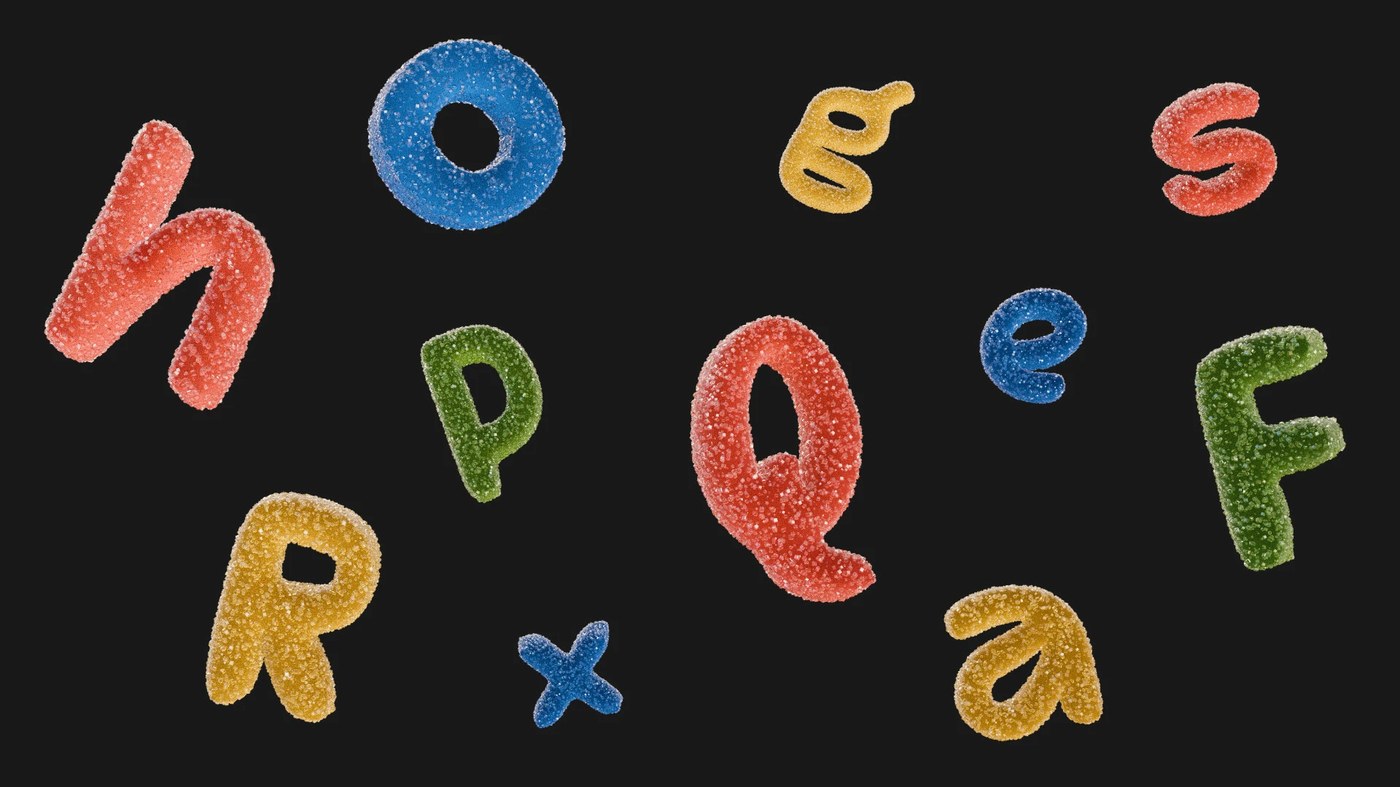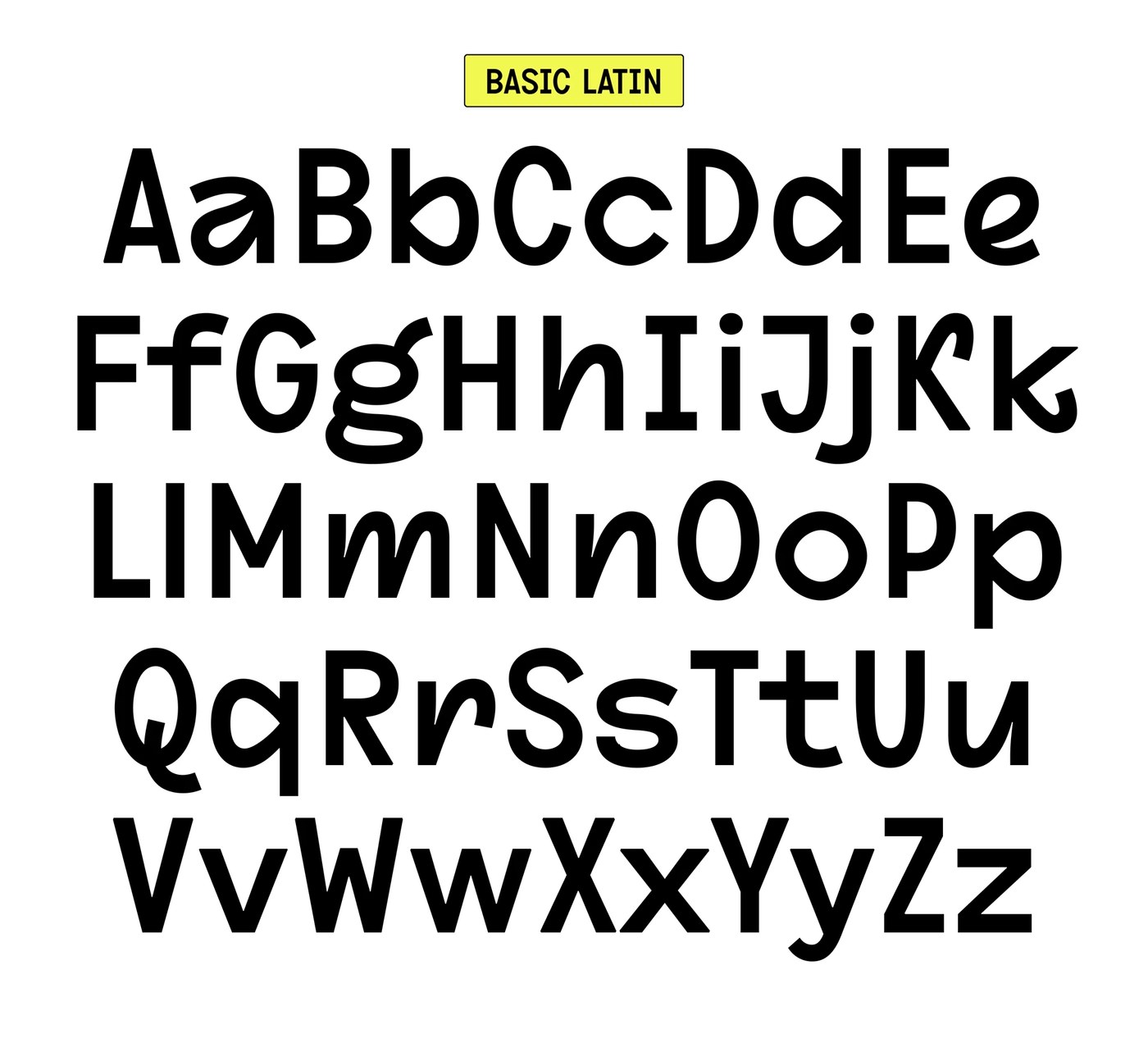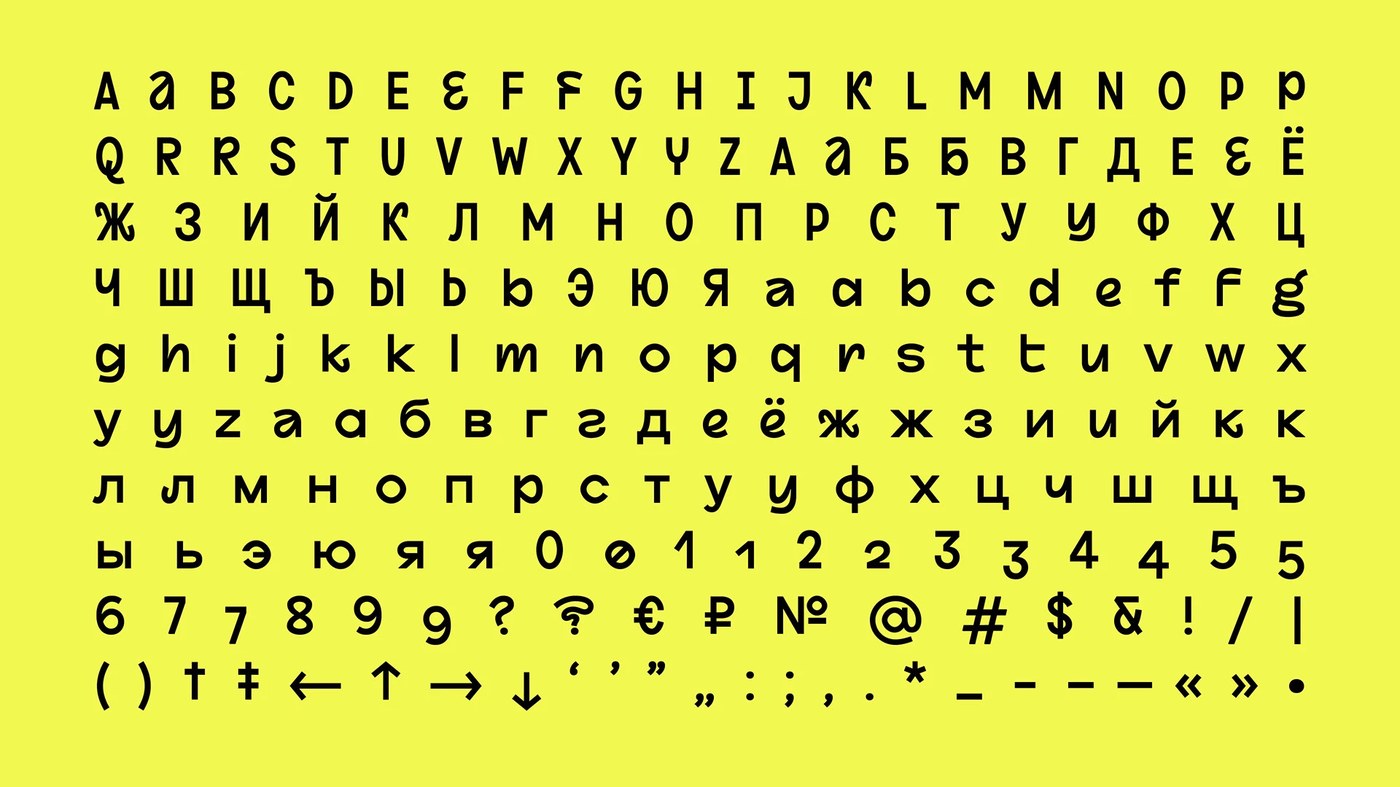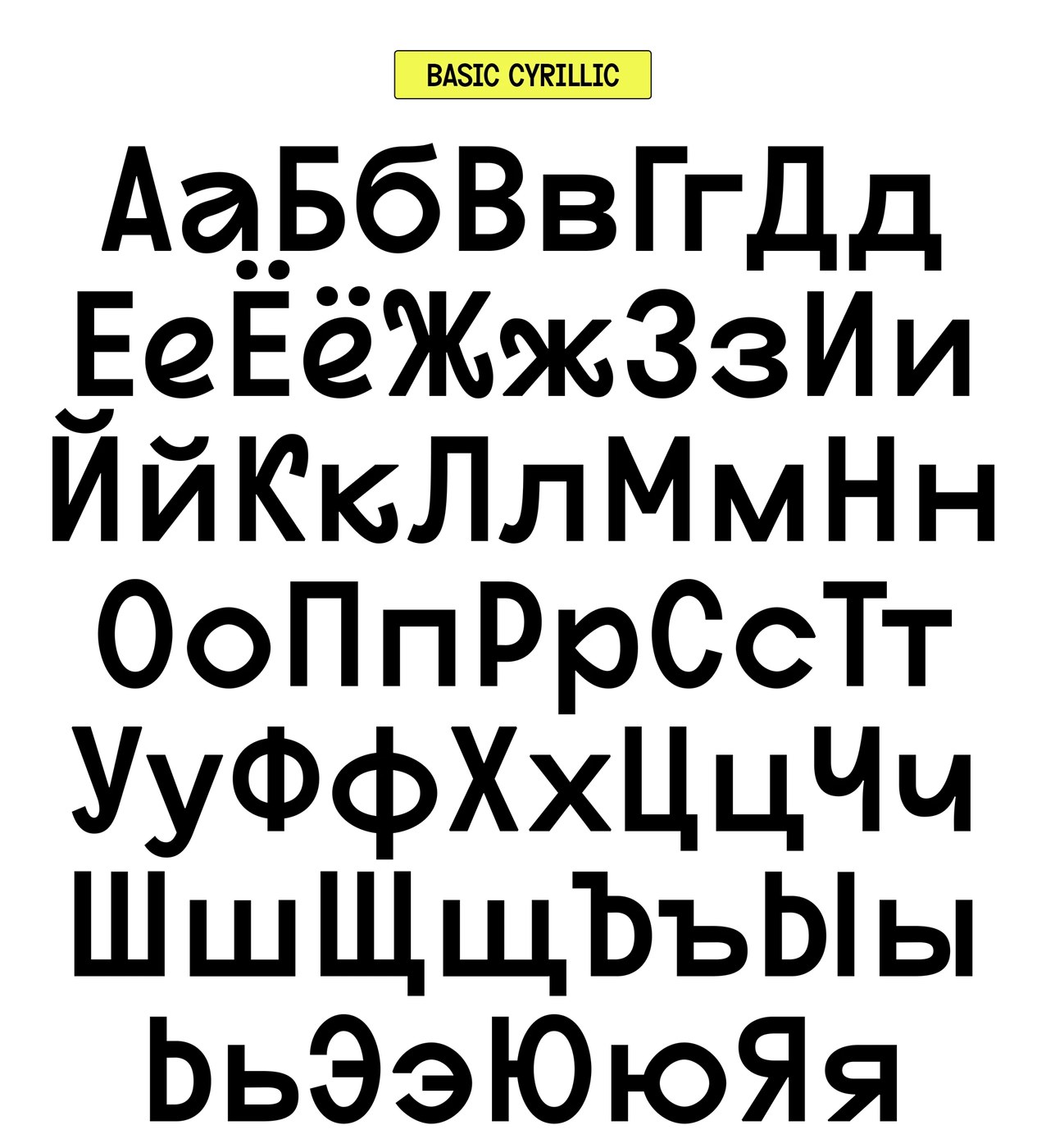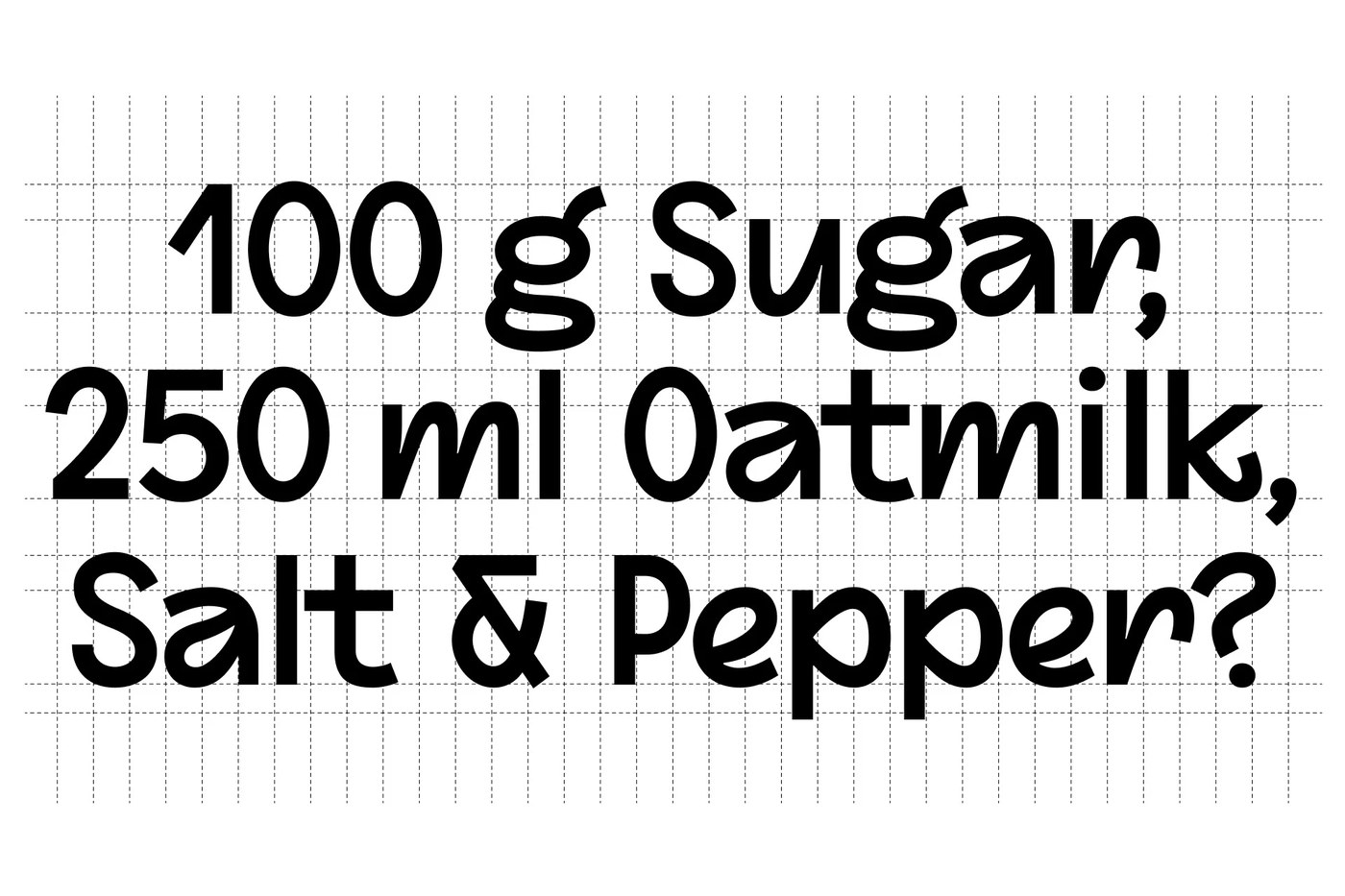
The design world is buzzing with the unveiling of ESH Typeface, a custom typographic creation by the innovative studio ESH Gruppa, meticulously engineered to serve as the foundational pillar of their own corporate identity system. Launched on August 22, 2026, and authored by abduzeedo, this new typeface represents a sophisticated synthesis of sharp geometric structures and fluid, expressive curves, designed not merely as a text carrier but as a collection of standalone graphic elements. Its consistently high stroke weight commands immediate attention, establishing a heavy visual footprint across any medium, while its distinctive retro styling, evident in character terminals and round bowl shapes, injects a timeless aesthetic into modern applications. The ESH Typeface is characterized by its crisp black ink contrast against stark white backgrounds, employing solid fill weights judiciously paired with thin keylines to generate a compelling visual tension that defines the dynamic rhythm of its comprehensive glyph set. This strategic design approach underscores a growing trend in brand identity: the development of bespoke typefaces that imbue a brand with unparalleled distinctiveness and communicative power.
The Genesis of ESH Typeface: A Strategic Design Imperative
ESH Gruppa, an acclaimed design studio known for its forward-thinking approach to branding and visual communication, embarked on the ambitious journey of creating a proprietary typeface as a cornerstone of its evolving corporate identity. In an increasingly saturated visual landscape, the decision to invest in a custom typeface is a strategic move, offering not only aesthetic differentiation but also enhanced brand control and consistency across all touchpoints. The studio recognized that a unique typographic voice could articulate their brand values—precision, creativity, and a blend of heritage with innovation—more effectively than any off-the-shelf font.
The project commenced in late 2024, following extensive internal discussions about the future direction of ESH Gruppa’s brand presence. The initial concept phase focused on identifying core design principles that would reflect the studio’s ethos. Designers aimed for a typeface that could bridge the gap between historical typographic craftsmanship and contemporary digital demands. The objective was to craft a system that felt both robust and refined, capable of conveying authority while retaining an approachable, artistic sensibility. This commitment to a custom solution aligns with a broader industry trend where leading brands, from tech giants to luxury fashion houses, are increasingly commissioning bespoke typefaces to carve out a unique visual signature, thereby reinforcing brand equity and memorability.
Anatomy of Distinction: Deconstructing ESH Typeface’s Design Principles
The ESH Typeface is a masterclass in controlled duality, where seemingly opposing design elements are brought into harmonious balance. The "sharp geometric structures" are not merely rigid; they are optically corrected to ensure a smooth, uninterrupted flow, even at large scales. These foundational geometries provide stability and a sense of modernism, anchoring the letterforms with a strong, architectural presence. Conversely, the "fluid, expressive curves" introduce a humanistic warmth and dynamism, preventing the typeface from appearing overly sterile or mechanical. This interplay is particularly evident in characters like ‘S’ or ‘C’, where the precise arc of a curve transitions seamlessly into a straight, unwavering stem. The designers note that this intentional tension between straight lines and lively curves was central to achieving the typeface’s distinctive character, making it both legible and visually engaging.
The impact of the typeface’s "consistently high stroke weight" cannot be overstated. This bold, assertive characteristic grants ESH Typeface a commanding presence on any page or screen, ensuring high visibility and immediate legibility, even in complex layouts. This inherent weight contributes to its "heavy visual footprint," making it an ideal choice for headlines, logos, and display typography where strong impact is paramount. The strategic use of "clean black ink contrast against stark white backgrounds" further amplifies this visual power, creating a sharp, definitive look that resonates with minimalist aesthetics while retaining a profound sense of depth. The pairing of "solid fill weights with thin keylines" is a sophisticated technique that establishes a compelling visual tension, allowing the heavier forms to breathe while the delicate lines provide definition and elegance. This contrast is not merely decorative; it is fundamental to the dynamic rhythm of the glyph set, guiding the eye and enhancing the overall aesthetic experience.
A significant aspect of ESH Typeface’s appeal lies in its "distinct retro styling," subtly integrated into character terminals and the round bowl shapes. This influence draws from mid-20th-century design, evoking a sense of nostalgic familiarity while remaining firmly rooted in contemporary sensibilities. Experts in typographic history suggest that this blend of retro elements with modern precision allows the typeface to transcend fleeting trends, offering a timeless quality that can adapt to various design contexts. The subtle flairs and softened angles in specific characters, reminiscent of vintage signage or print, add a layer of personality and warmth, preventing the typeface from feeling overly clinical despite its geometric underpinnings.
Perhaps one of the most innovative aspects highlighted by ESH Gruppa is the philosophy that "Every letter is drawn to work as a standalone graphic element rather than just a text carrier." This radical approach liberates individual glyphs from their traditional role, allowing them to function as powerful visual icons or components within a larger graphic composition. This thinking profoundly influences how the typeface can be utilized in branding, where a single letter from a logo might be extracted and used as a distinct brand motif or pattern. This versatility opens new avenues for creative expression in logo design, iconography, and experimental layouts, positioning ESH Typeface as more than just a font, but a comprehensive graphic toolkit. Furthermore, while not explicitly detailed in the initial announcement, a robust corporate typeface like ESH Typeface would undoubtedly incorporate a suite of technical sophistications, including extensive OpenType features for ligatures, alternate characters, and stylistic sets, precise kerning pairs for optimal spacing, and potentially multiple weights and styles (e.g., light, regular, medium, bold, black) to ensure versatility across a wide range of applications, from fine print to expansive display uses. Multilingual support would also be a critical consideration, reflecting the global reach of modern design studios.
Architectural Typography: Layout, Scale, and Dynamic Composition
The application of ESH Typeface in design layouts is as meticulously crafted as the letterforms themselves. The studio’s reliance on a "strict modular grid" for organizing the heavy letterforms is a testament to the principles of order and precision. This grid system provides a structural backbone, ensuring that even the most assertive typographic compositions maintain balance and clarity. The grid acts as an invisible framework, allowing the designers to experiment with scale and placement while guaranteeing visual harmony.
A key illustrative technique involves the deployment of "large glyph specimens" that "occupy full poster spreads." This approach effectively demonstrates the typeface’s scalability and visual impact across different media, from small digital screens to expansive print billboards. The strategic use of scale is further exemplified by the contrast between "tiny metadata captions" and "giant display characters," a technique that creates strong visual tension and clearly defined hierarchies within a layout. This interplay of vast and minute elements guides the viewer’s eye, drawing attention to critical information while allowing the display characters to function as compelling visual art.
ESH Gruppa also challenged conventional norms by allowing "character widths to vary slightly to break the predictability of standard grotesque models." While traditional grotesque typefaces often prioritize uniformity, ESH Typeface embraces subtle variations that inject a more organic, dynamic feel, preventing the overall composition from becoming monotonous. This deliberate deviation from strict standardization adds character and a bespoke quality, making the typeface feel more artisanal and less machine-made. This nuanced approach ensures that the typography functions as the "primary design driver," transforming "standard layouts into dynamic typography compositions through alignment, scale, and negative space." This philosophy elevates typography from a mere functional element to the core artistic expression of a design, dictating rhythm, mood, and message.
The typeface is poised to become a signature element in ESH Gruppa’s ongoing and future projects, serving as a powerful demonstration of their design philosophy and capabilities. Its ability to bridge retro aesthetics with modern digital demands positions it as a forward-thinking solution, reflecting the dynamic nature of contemporary visual communication. Ultimately, ESH Typeface is more than just a font; it is a statement—a testament to the power of thoughtful design, collaborative innovation, and the enduring impact of a truly unique typographic voice in shaping brand perceptions and visual culture. For designers and enthusiasts eager to explore this groundbreaking work, further details on the ESH Typeface project are available on Behance, alongside a dedicated profile for ESH Gruppa.